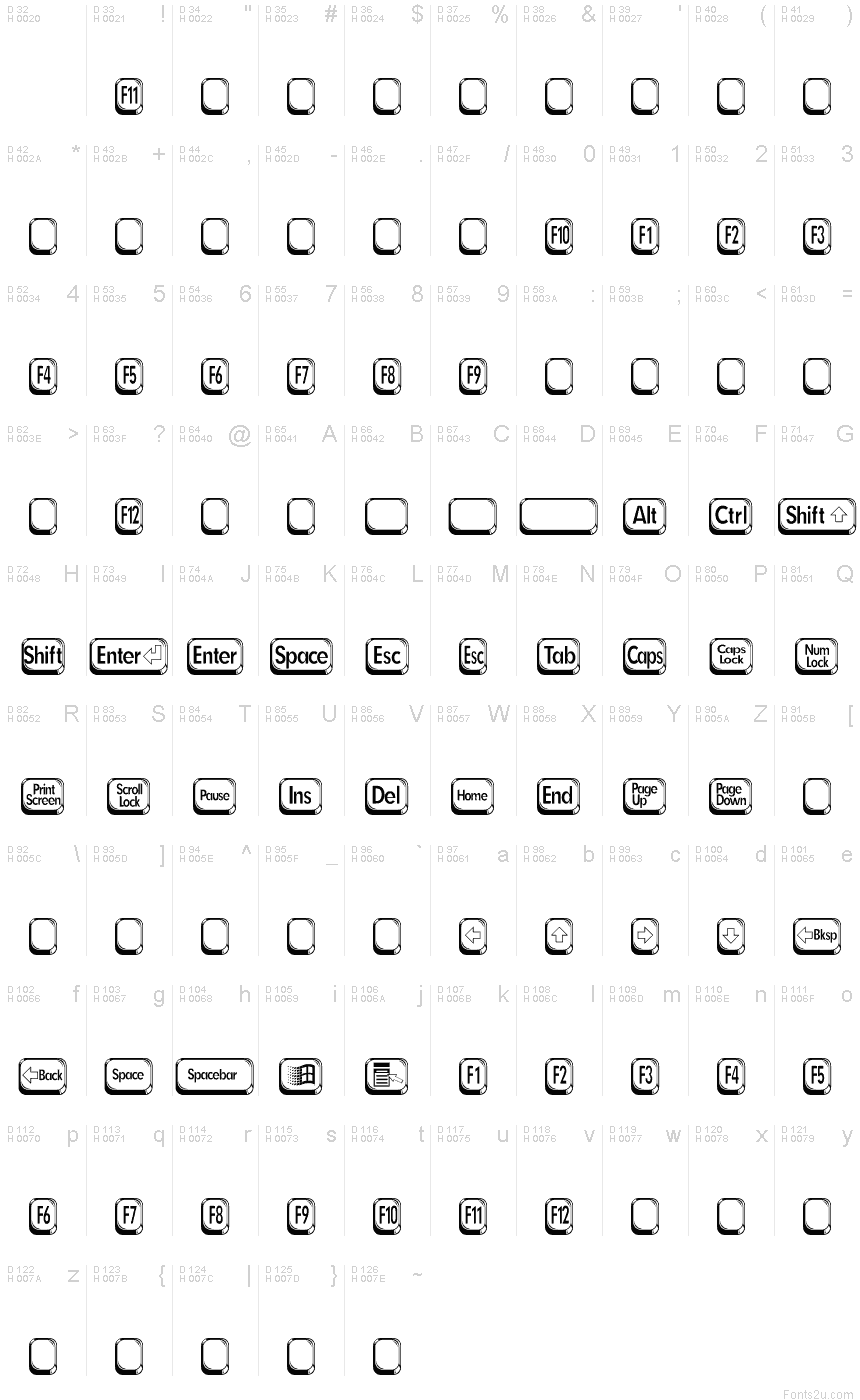
Betsy Flanagan 2
Betsy Flanagan 2 font by Ray Larabie is a free decorative dingbat typeface that turns every character into a chunky, rounded keycap. Thick black outlines, pill-shaped corners, and a subtle “pressed” edge give it the feel of an old mechanical keyboard sketched with an inky marker. It’s playful but still legible, so your icons read clearly even at small sizes while looking delightfully tactile and clickable.
Using Betsy Flanagan 2, you can quickly drop ready-made keyboard keys into software tutorials, shortcut cheatsheets, UI mockups, retro tech posters, gamer zines, infographics, and packaging. The consistent rhythm of the key shapes keeps layouts tidy, even when you mix many symbols in a row. This free font works beautifully alongside a clean geometric sans set in a lighter weight—let the keycaps handle the emphasis while the sans carries your body copy.